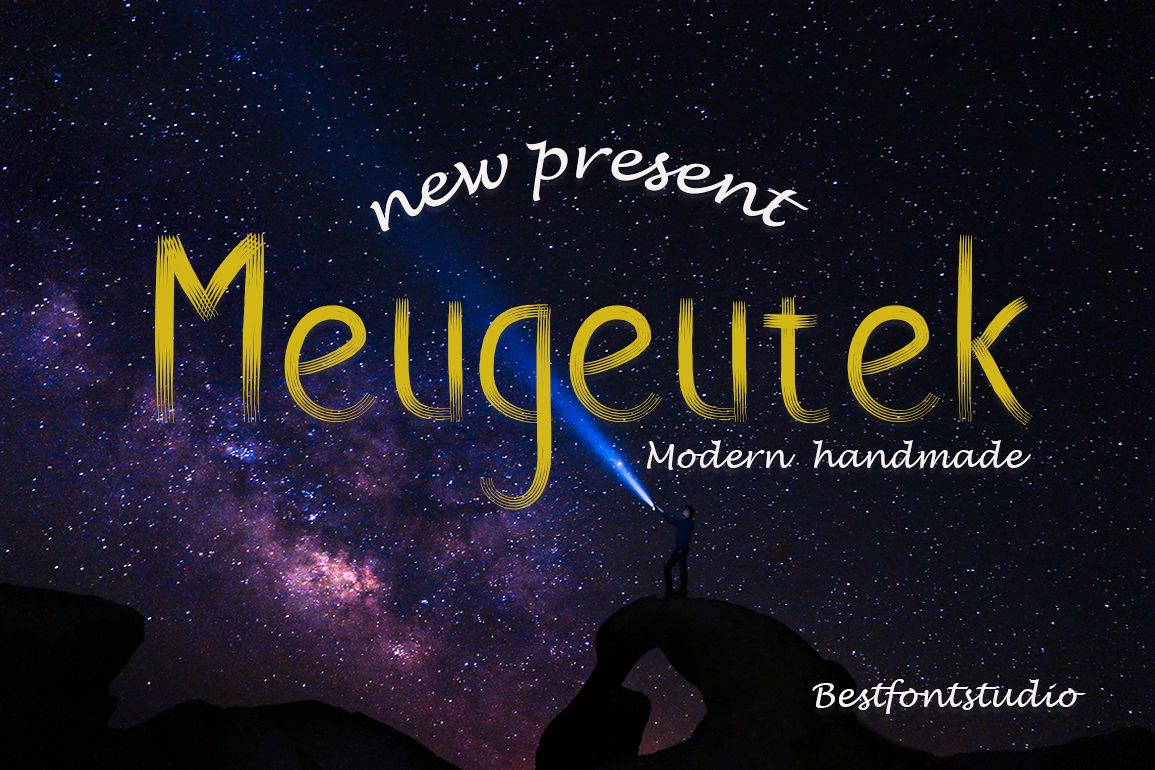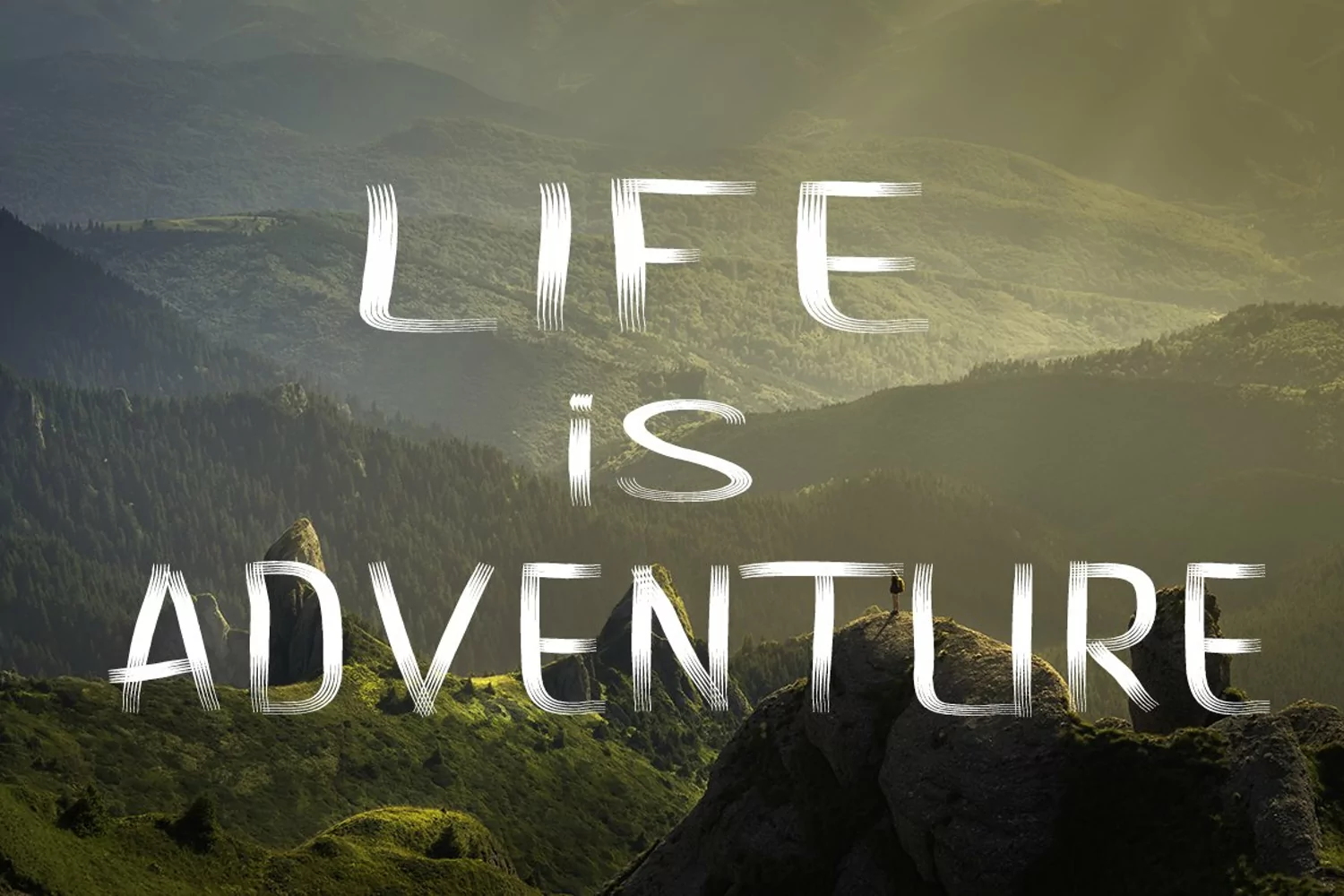
Meugeutek A handmade typeface
that inspired from hand-drawn lettering and vintage style, suitable for
your awesome works (Brands, Poster, Logo, Advertisement, etc)